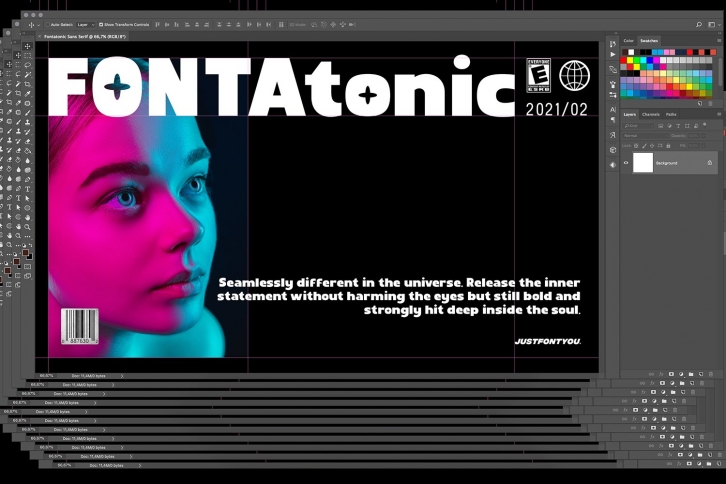
atonic is a beautiful font that was designed by Ian Irwan Wismoyo. It's a great choice for designers and creatives who need such a font. It was released on August 15, 2021 and the file size is 11.55 MB. atonic may give a more youthful, expressive and casual look to your project. It is a very beautiful, refined, elegant, and high-quality font.